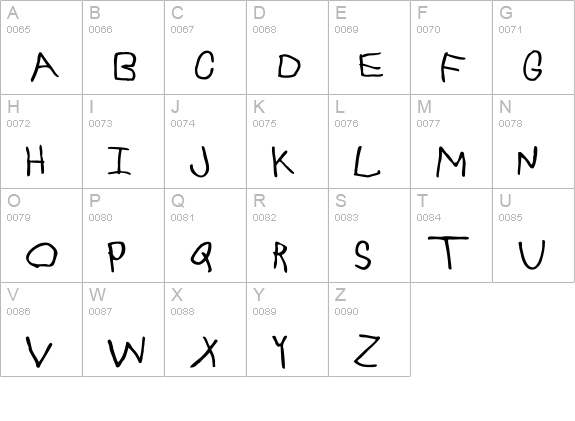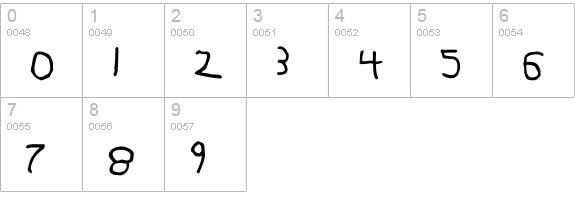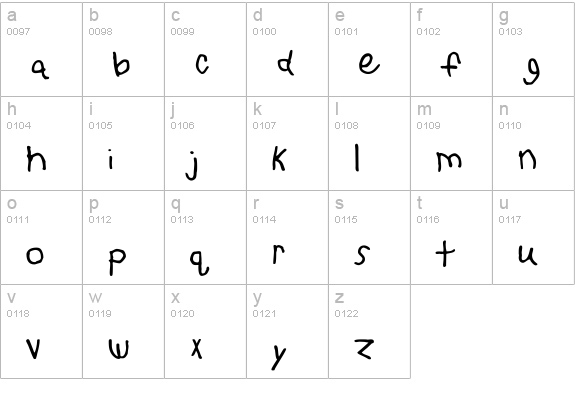
Childs Play Regular is the standard, neutral variant in the Childs typeface family \xE2\x80\x94 well suited to general body text, paragraphs, and standard typographic work.
Childs Play Regular font is a whimsical and playful typeface perfect for adding a touch of charm to your designs. With its rounded edges and friendly demeanor, this font is sure to bring a smile to anyone who sees it. Whether you're working on a children's book, a birthday invitation, or a fun poster, Childs Play Regular is the ideal choice to convey a sense of innocence and joy. The best part? Childs Play Regular font is completely free to download at FontsMarket.com. That's right, you can easily access this delightful font without any cost, making it a fantastic option for budget-conscious projects or anyone looking to add a bit of fun to their creations without breaking the bank. Don't miss out on this fantastic opportunity to enhance your designs with the delightful Childs Play Regular font - download it for free today at FontsMarket.com!